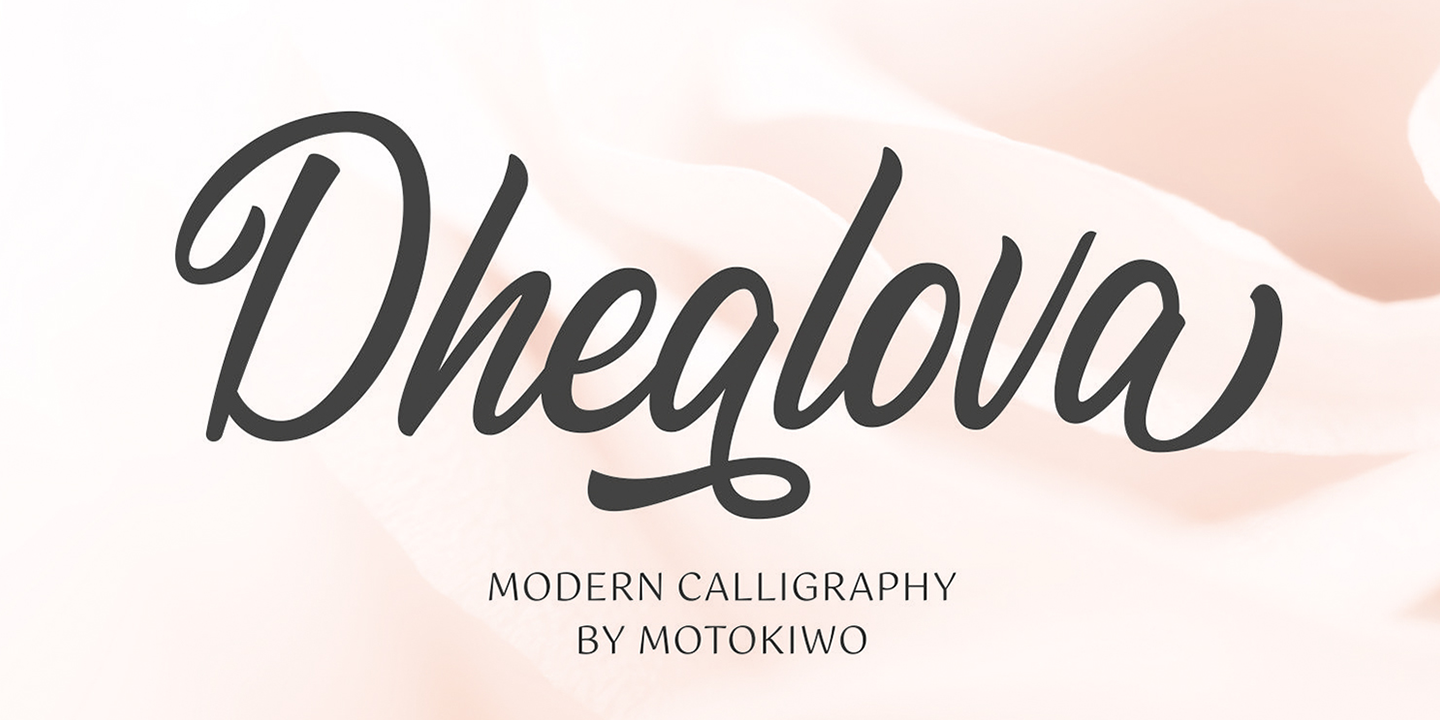
Dhealova Font is perfect for romantic wedding invitations, heartfelt love letters, passionate Valentine's Day designs, intimate couple photography branding, romantic restaurant logos, elegant anniversary celebrations, tender greeting cards, loving poetry books, romantic spa treatments, sweet bakery signage, affectionate social media posts, and sentimental gift packaging.
What makes Dhealova Font so exciting is its deeply romantic and emotionally expressive character that beautifully captures the essence of love, passion, and heartfelt connection. This enchanting typeface features flowing curves, tender letterforms, and gentle romantic details that evoke feelings of warmth, intimacy, and genuine affection, making it perfect for projects that need to communicate deep emotional bonds, romantic sentiments, and the powerful beauty of love in all its forms.
The Dhealova Font family typically includes regular and ornate variations with romantic flourishes, heart-inspired decorative elements, and loving ligatures that enhance the passionate aesthetic while maintaining excellent readability for intimate design applications.
Whether you're designing romantic stationery or creating branding for love-focused businesses, Dhealova Font Free Download offers the ideal typography solution for projects requiring emotional depth and romantic authenticity. This versatile font masterfully combines passionate expression with elegant sophistication, making it an invaluable resource for designers working on projects that celebrate love, romance, and the tender moments that make relationships truly special and meaningful.